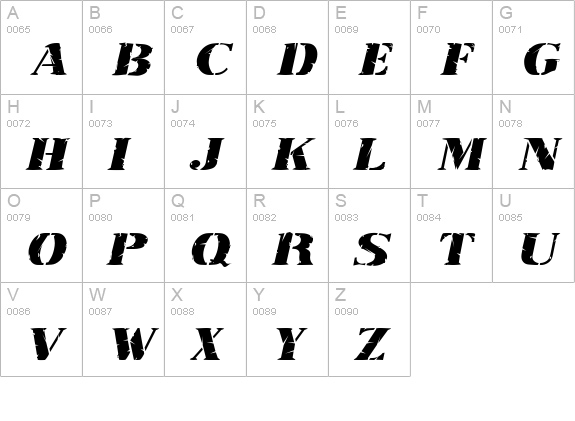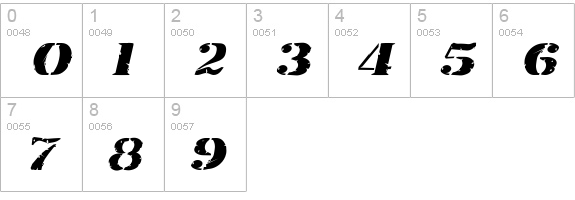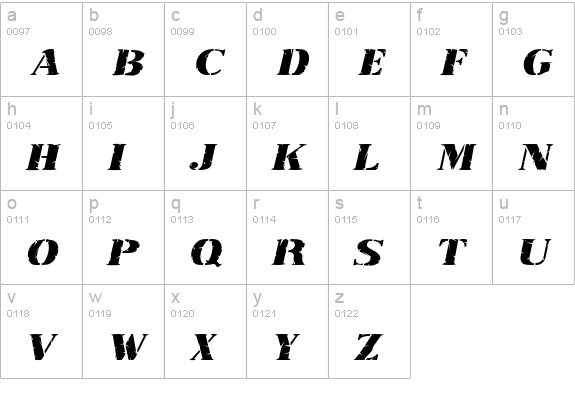
RubberStampExtended Italic Font Details
RubberStampExtended Italic is a distinctive, italic variant in the RubberStampExtended typeface family \xE2\x80\x94 well suited to design and typography projects.
RubberStampExtended Italic font is a unique and quirky typeface that exudes a sense of creativity and playfulness. Its slanted and irregular design gives it a hand-stamped look, perfect for adding a personalized touch to your projects. This font is ideal for creating eye-catching headlines, posters, invitations, and more. The best part is that RubberStampExtended Italic font is completely free to download at FontsMarket.com. So whether you're a designer looking to add some character to your creations or simply want to experiment with a fun new font, be sure to check out RubberStampExtended Italic for all your creative needs.